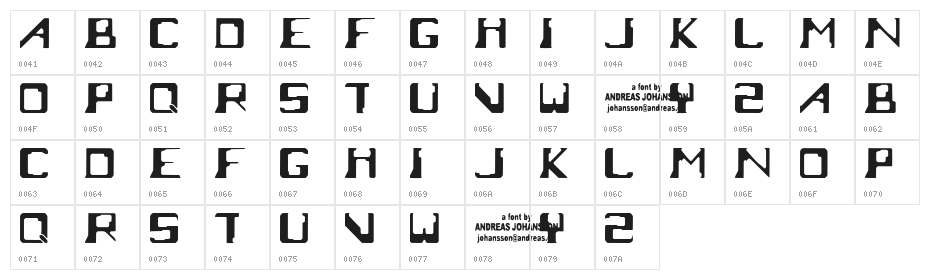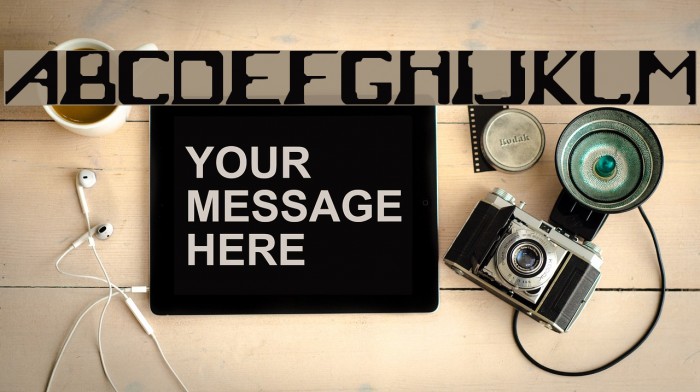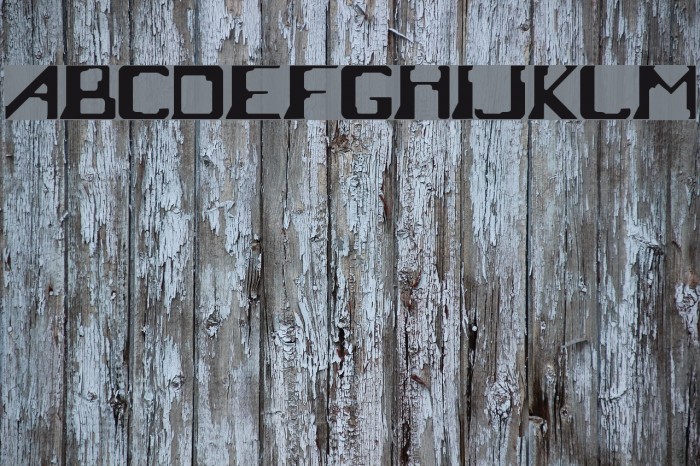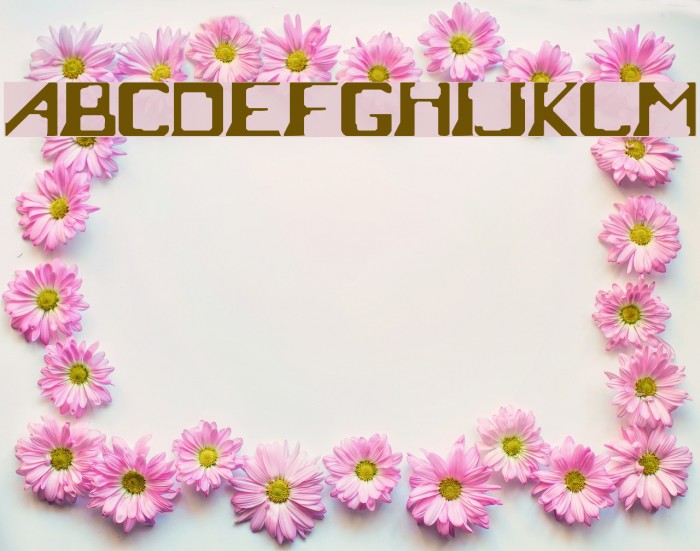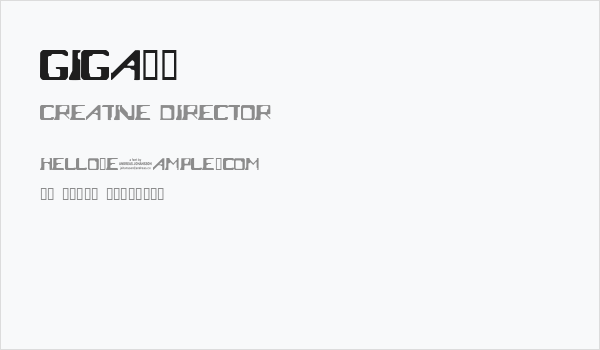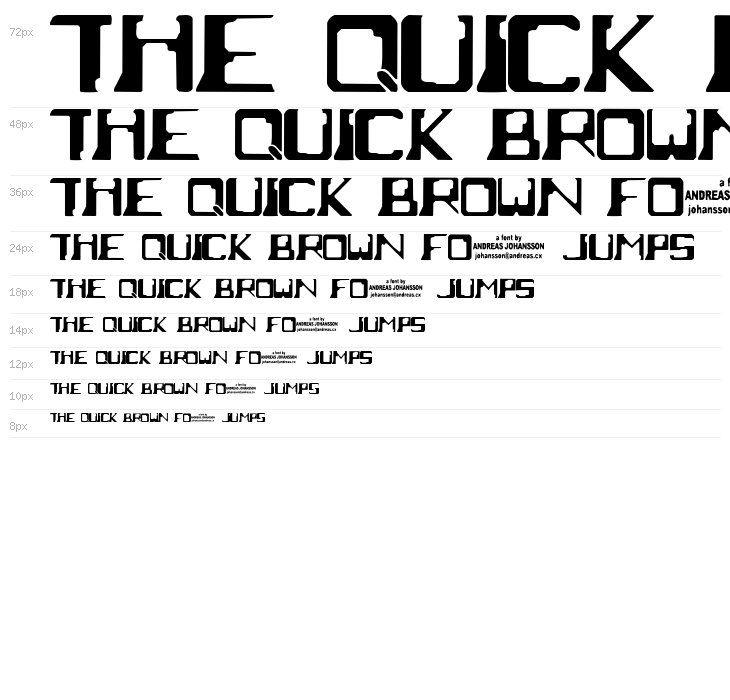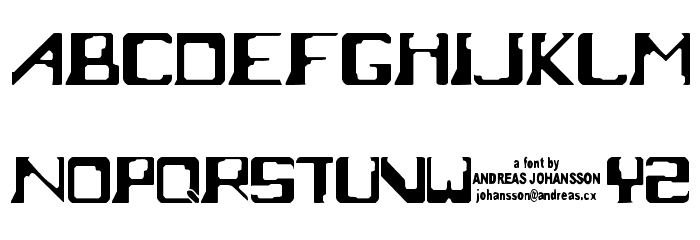
Giga66 Font
Giga66 Description
This font features a bold, geometric design with sharp angles and a futuristic aesthetic. The uppercase letters are distinct with a blocky, angular style that gives a sense of strength and modernity. The characters are evenly spaced, maintaining a consistent width throughout, which enhances readability. The numbers and special characters follow the same design principles, ensuring a cohesive look across all elements. This font is ideal for projects that require a modern, tech-inspired feel, such as digital interfaces, gaming titles, or sci-fi themed designs.
| Proposed Projects | Ideal for digital interfaces, gaming titles, sci-fi themed designs, and modern branding projects. |